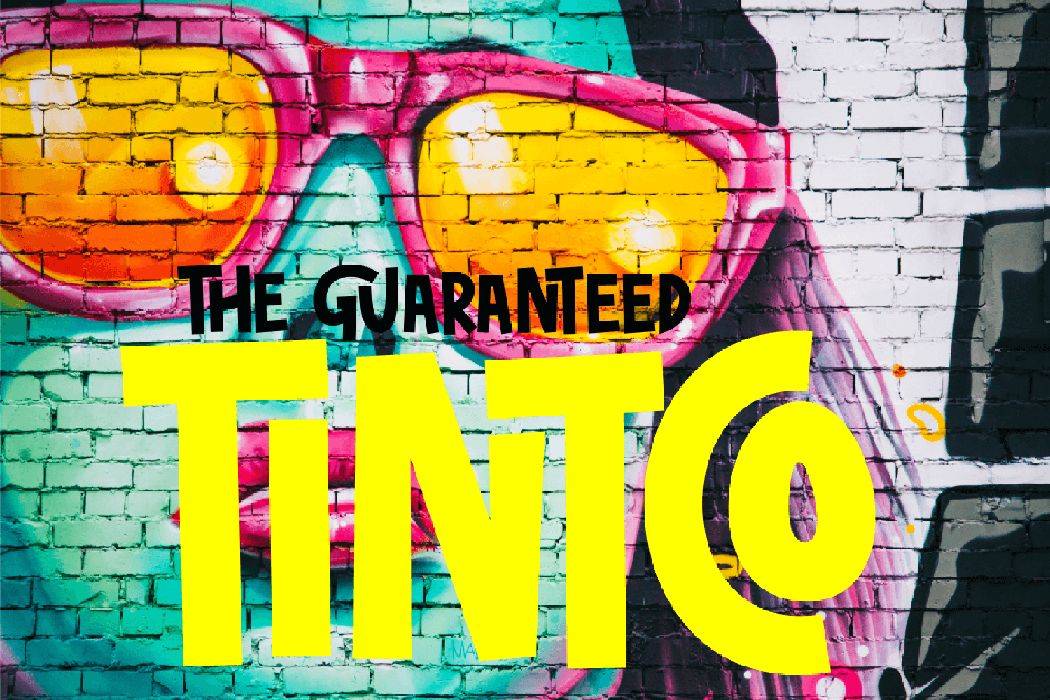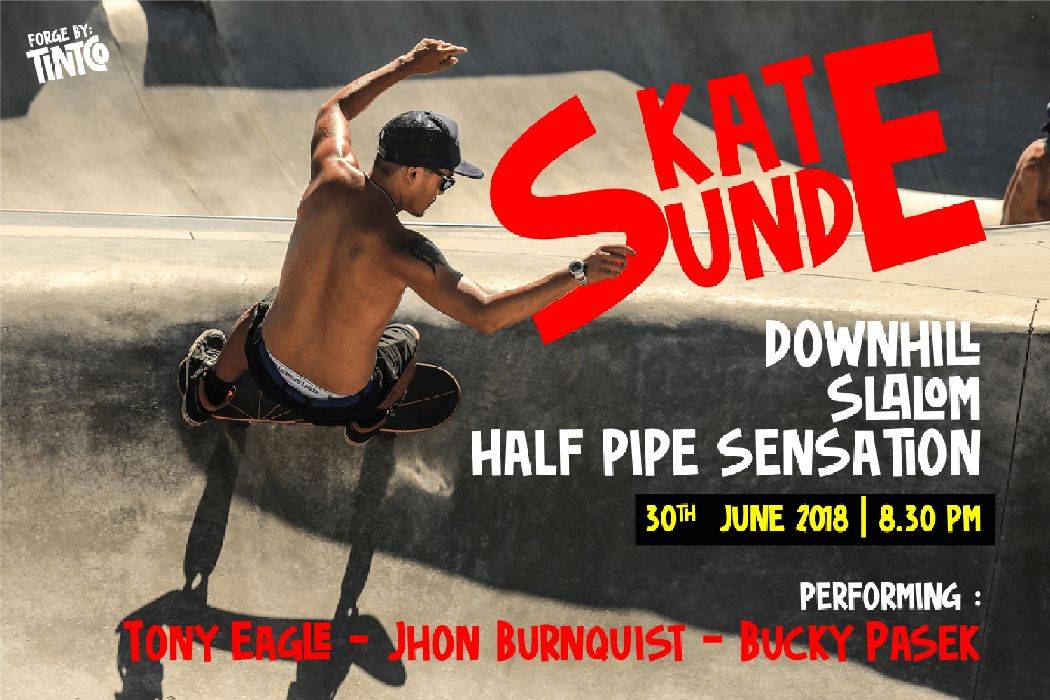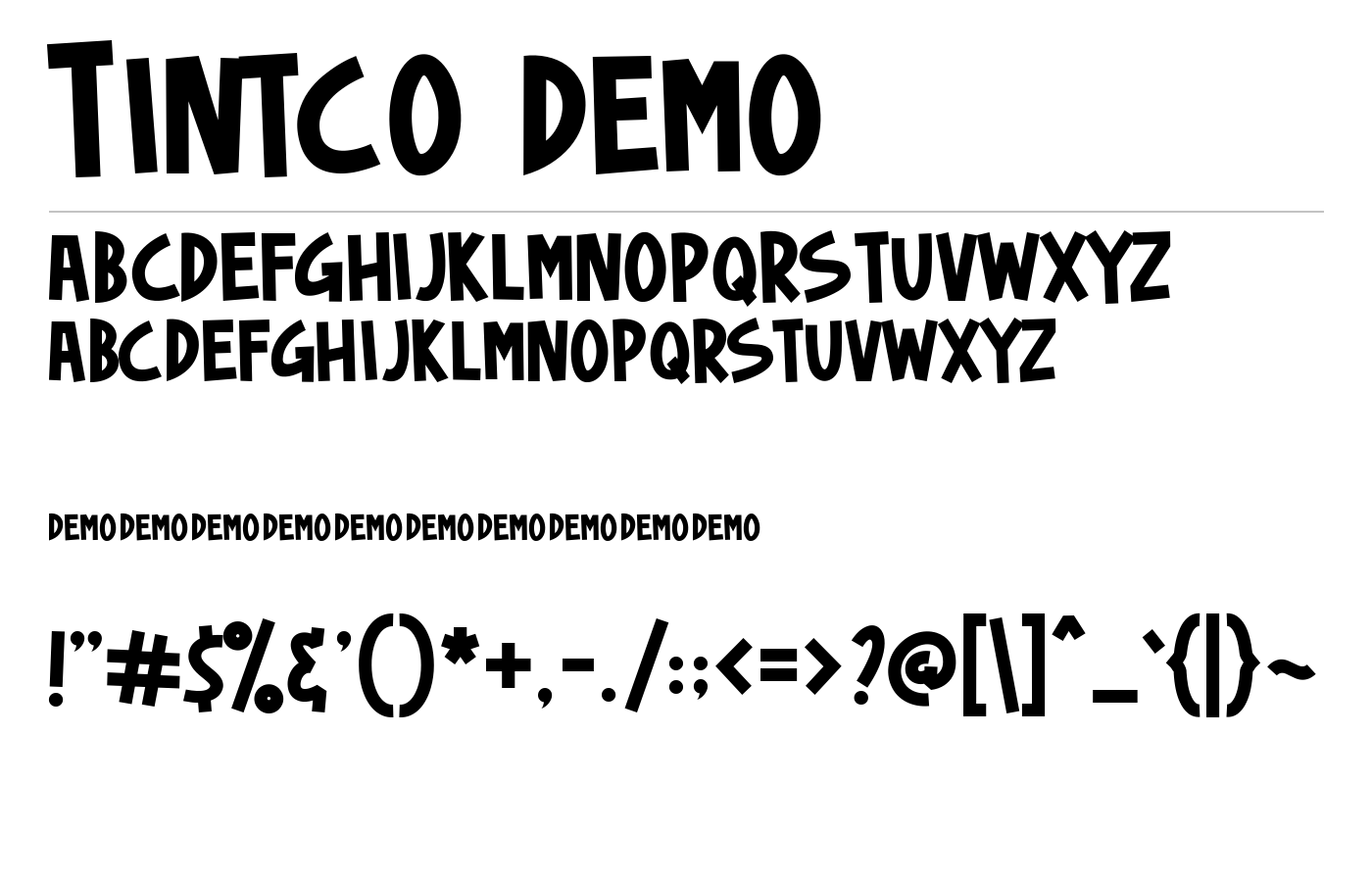
Tintco is a bold and quirky sans serif font featuring playful, slightly irregular letterforms that give it a fun and casual character. Its upright, chunky style with varied stroke angles makes it perfect for eye-catching headlines, children's content, or informal branding that needs an energetic and approachable vibe. This font adds personality and charm wherever a lively and distinctive look is desired.
Tintco Font
About Tintco Font